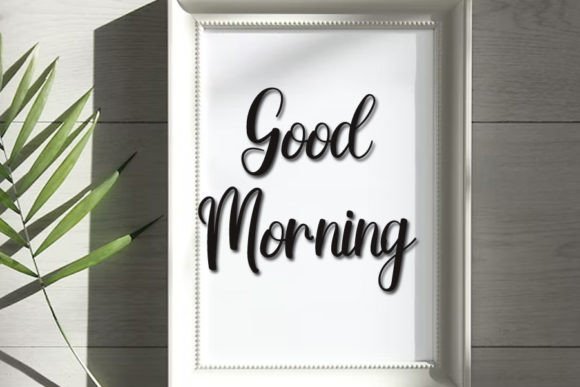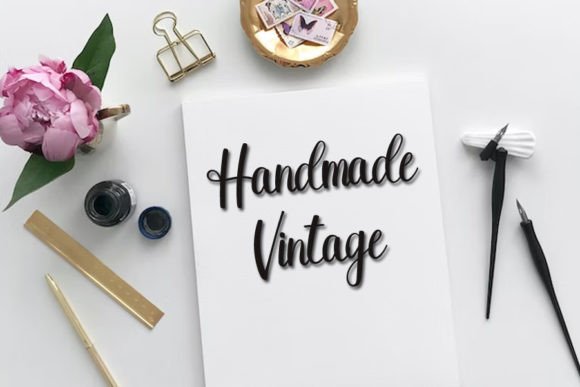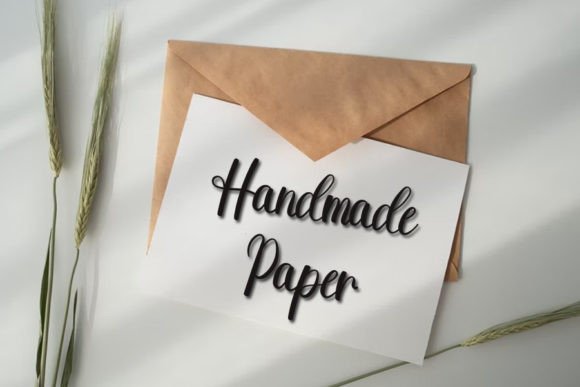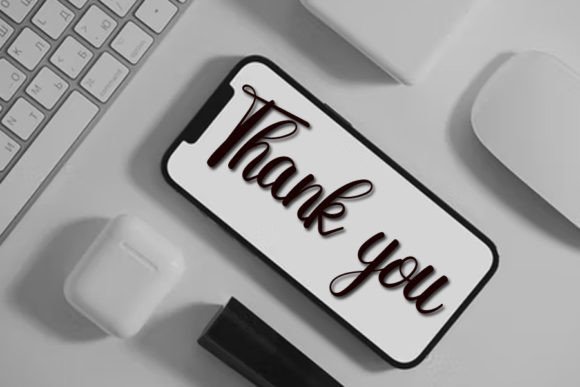
Introducing Alright Font: The Romantic and Sweet Calligraphy Typeface
Are you a designer or crafter looking for a font that exudes romance and sweetness? Look no further than Alright Font, a beautiful calligraphy typeface that is sure to capture the hearts of your audience. With its casual yet elegant touch, Alright Font is perfect for a variety of design projects, from wedding invitations and romantic letters to branding and packaging.
What Makes Alright Font So Special?
Alright Font is a unique and charming typeface that stands out from the crowd. Its characters dance along the baseline, giving it a playful and carefree feel that is sure to delight. The font’s casual, yet elegant touch makes it perfect for designers and crafters who want to add a touch of sophistication to their work.
Key Features of Alright Font
- Romantic and Sweet: Alright Font is the perfect choice for designers and crafters who want to create romantic and sweet designs. Its charming characters and elegant touch make it ideal for wedding invitations, love letters, and other romantic projects.
- Casual yet Elegant: Alright Font has a casual, yet elegant touch that makes it perfect for a variety of design projects. Its unique characters and playful feel make it stand out from other fonts, while its elegance ensures that it remains sophisticated and refined.
- Calligraphy Style: Alright Font is a beautiful calligraphy typeface that is inspired by traditional calligraphy. Its flowing characters and elegant lines make it perfect for designers and crafters who want to create beautiful, hand-written designs.
Uses for Alright Font
Alright Font is a versatile typeface that can be used for a variety of design projects. Here are some ideas to get you started:
- Wedding Invitations: Alright Font is perfect for wedding invitations, with its romantic and sweet feel making it ideal for couples who want to set the tone for their special day.
- Branding and Packaging: Alright Font’s elegant touch makes it perfect for branding and packaging projects. Its unique characters and playful feel make it stand out from other fonts, while its sophistication ensures that it remains refined and elegant.
- Stationery and Cards: Alright Font is perfect for creating beautiful stationery and cards. Its charming characters and elegant lines make it ideal for romantic letters, thank-you cards, and other correspondence.
Tips for Using Alright Font
Here are some tips for using Alright Font in your design projects:
- Pair it with Other Fonts: Alright Font can be paired with other fonts to create a unique and interesting look. Try pairing it with a bold, sans-serif font for a striking contrast.
- Use it for Headings: Alright Font is perfect for headings and titles, with its elegant touch and charming characters making it ideal for grabbing the attention of your audience.
- Experiment with Colors: Alright Font looks beautiful in a variety of colors, from soft pastels to rich jewel tones. Experiment with different colors to find the perfect look for your design project.
Alright Font is a beautiful and charming calligraphy typeface that is perfect for designers and crafters who want to add a touch of romance and sweetness to their work. With its casual yet elegant touch, unique characters, and playful feel, Alright Font is sure to capture the hearts of your audience. Whether you’re creating wedding invitations, branding and packaging, or stationery and cards, Alright Font is the perfect choice.